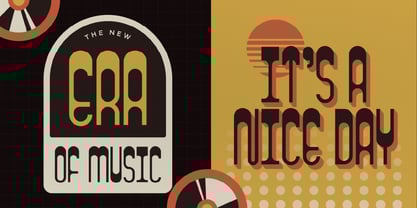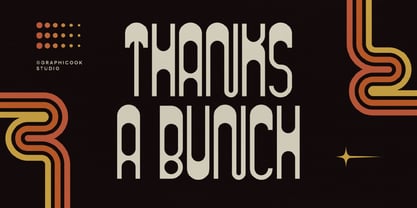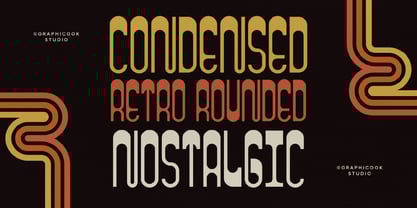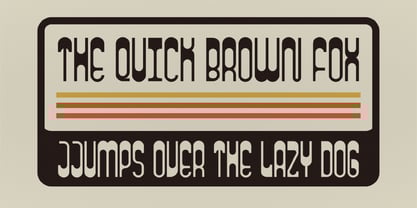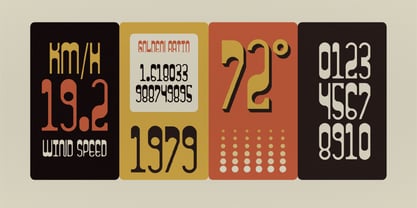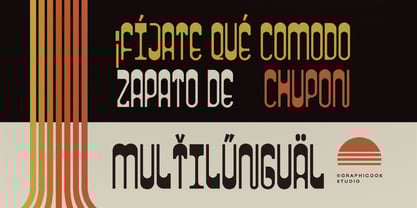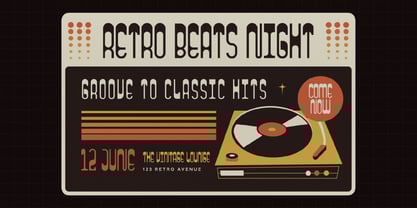
Cook Rouncond
by Graphicook Studio
The Cook Rouncond Font Family was designed by Gumilar Febriansyah and published by Graphicook Studio. Cook Rouncond contains 1 styles.
Rouncond is a blend of rounded and condensed styles, inspired by modern Bauhaus design. Perfect for posters, logos, album covers, and more.
It is perfect for headlines, logotypes, magazines, packaging, quotes, movies, games, cover albums, book covers, and flyers, it's a perfect solution for creating eye-catching designs that stand out in any context.
Designers: Gumilar Febriansyah
Publisher: Graphicook Studio
Foundry: Graphicook Studio
Design Owner: Graphicook Studio